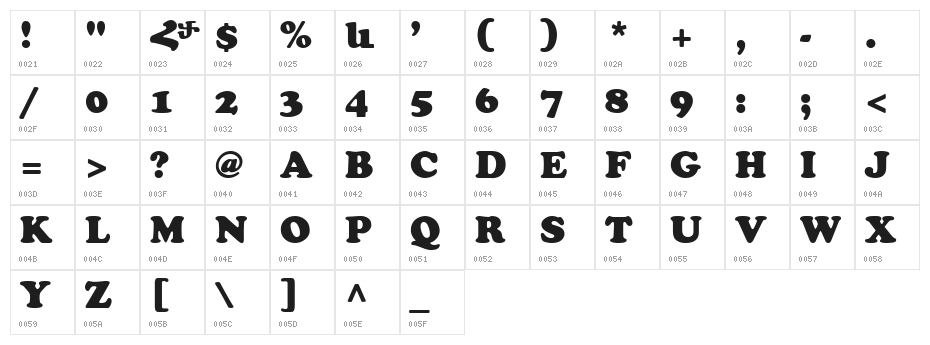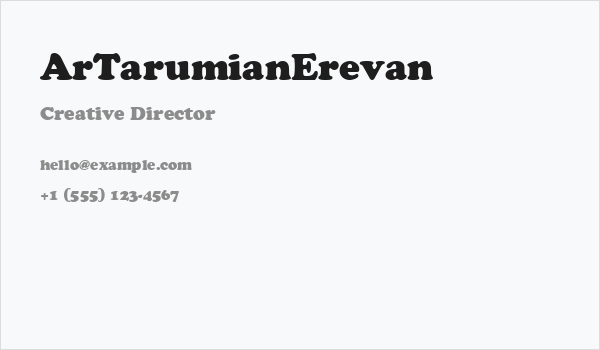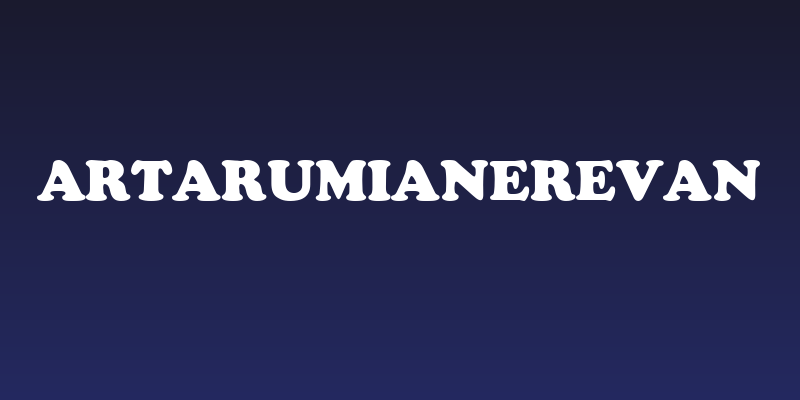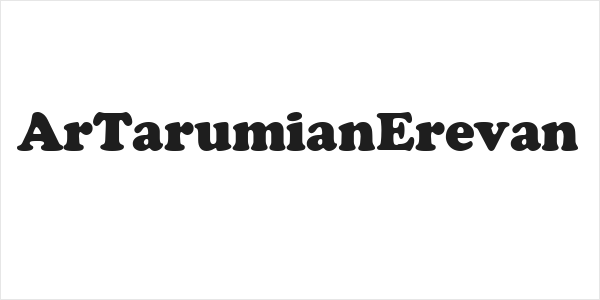
ArTarumianErevan Font
ArTarumianErevan Description
This font features bold, rounded characters with a playful and slightly whimsical appearance. The letters are thick and have a consistent stroke weight, giving them a strong presence. The rounded edges soften the overall look, making it approachable and friendly. The uppercase and lowercase letters maintain a uniform style, with the lowercase letters slightly shorter and wider. The numerals are bold and match the style of the alphabet, ensuring consistency across all characters. Special characters are included, maintaining the same bold and rounded aesthetic. This font is ideal for projects that require a fun and engaging look.
| Proposed Projects | Ideal for children's books, playful branding, posters, and any design needing a fun and engaging typeface. |